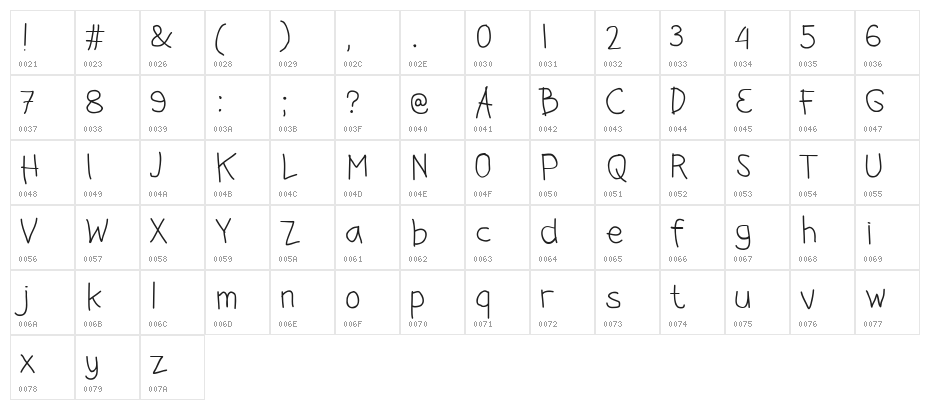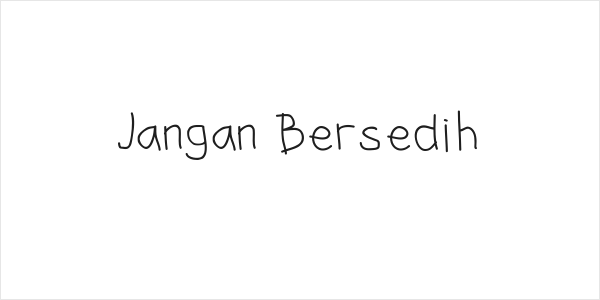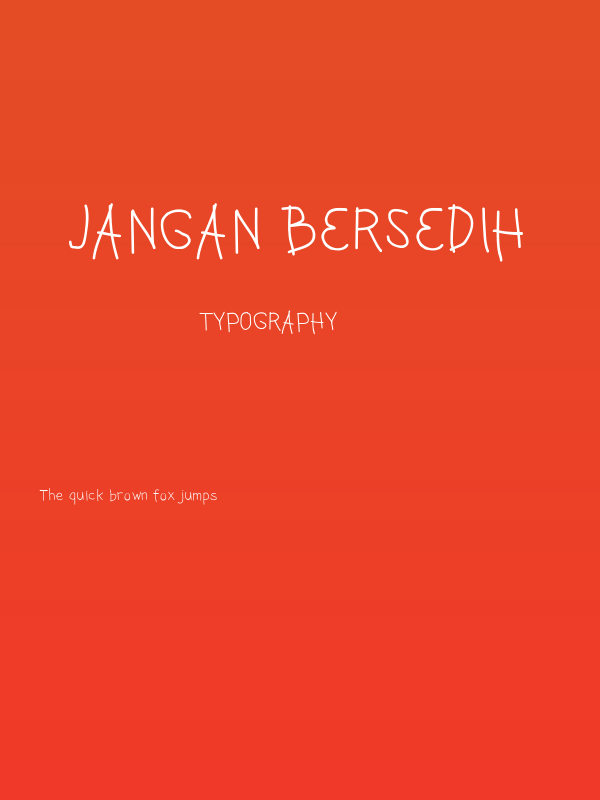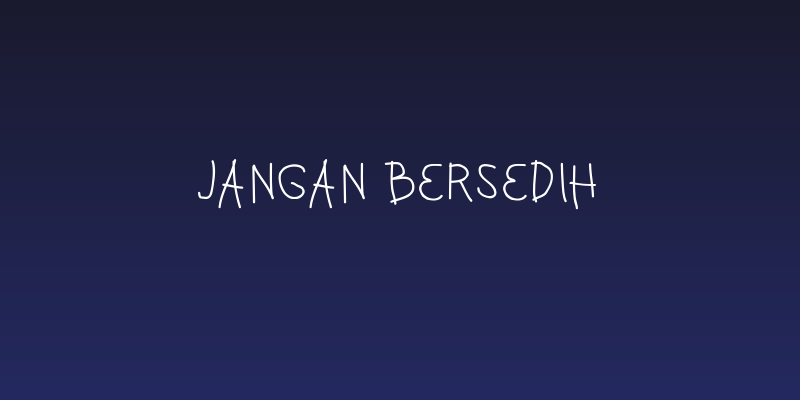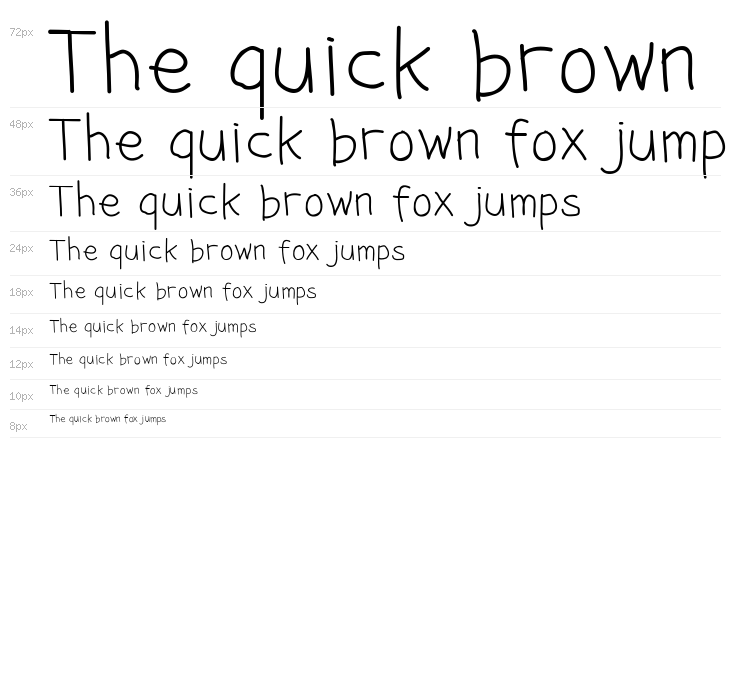
Jangan Bersedih Font
Jangan Bersedih Description
This font features a playful, handwritten style with a casual and informal appearance. The characters are slightly irregular, giving it a whimsical and approachable feel. The uppercase and lowercase letters maintain a consistent flow, while the numbers and special characters complement the overall design. The strokes are smooth and rounded, adding to the friendly aesthetic. This font is ideal for projects that require a personal touch or a creative flair, such as children's books, greeting cards, or informal invitations.
| Overall Style | Casual, Whimsical |
| Proposed Projects | Children's books, greeting cards, informal invitations, creative projects. |